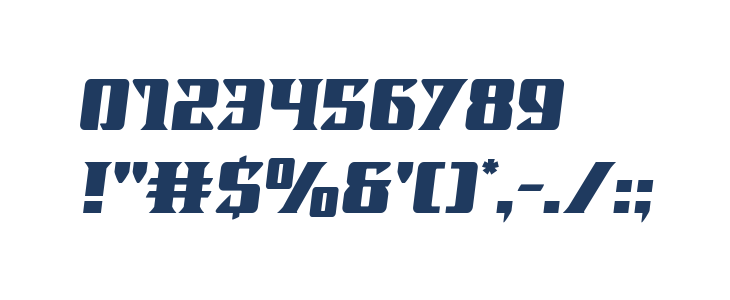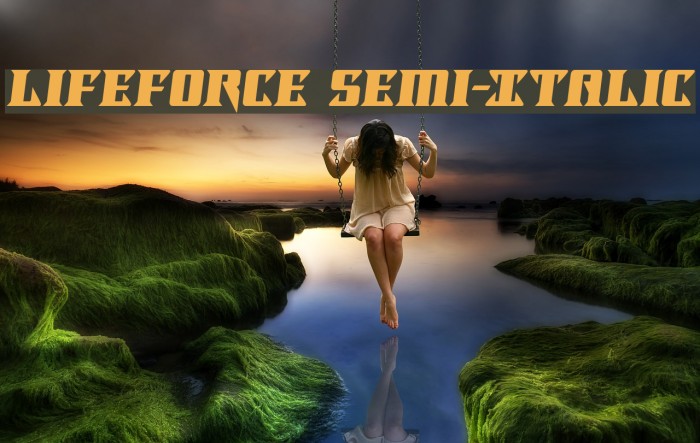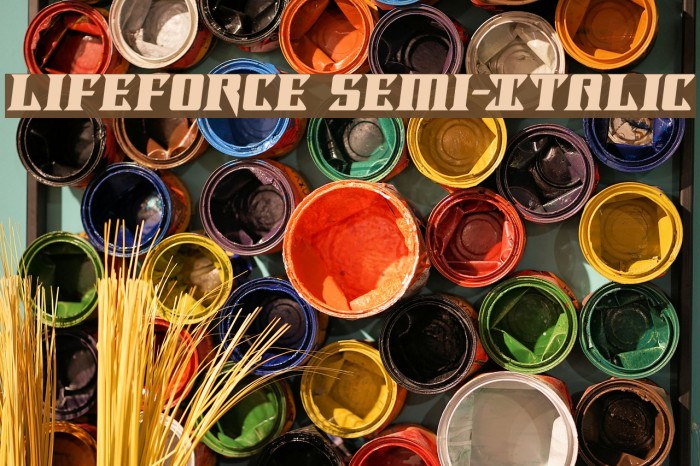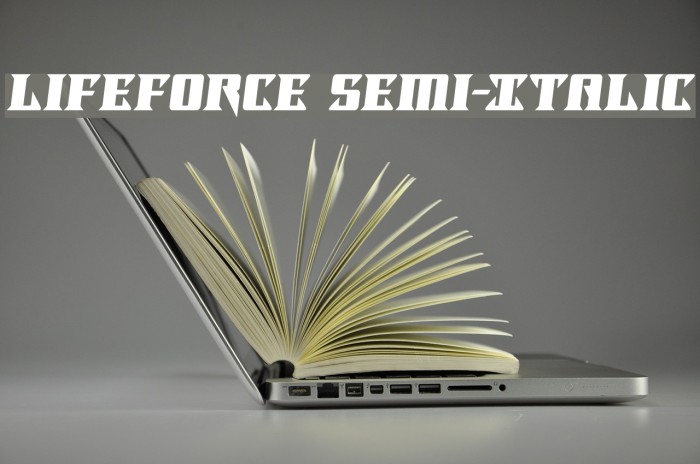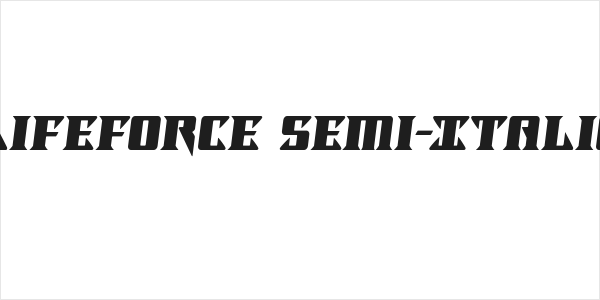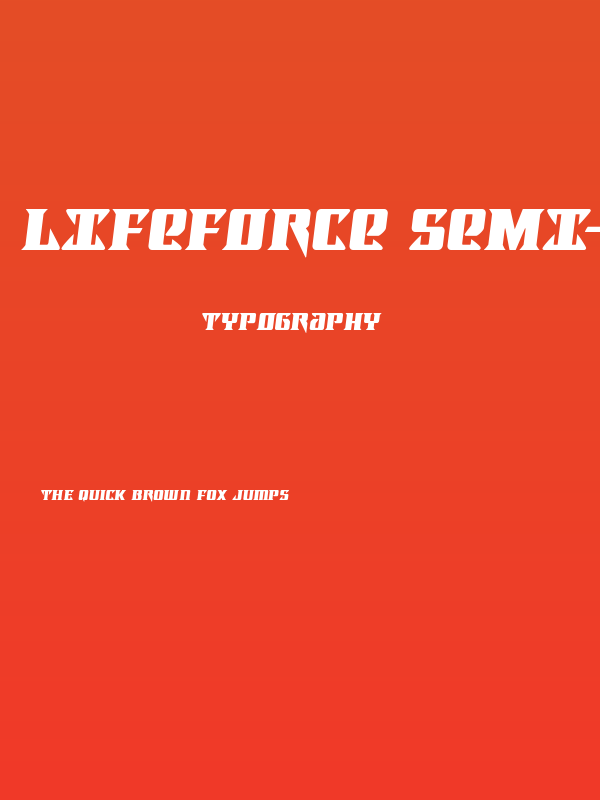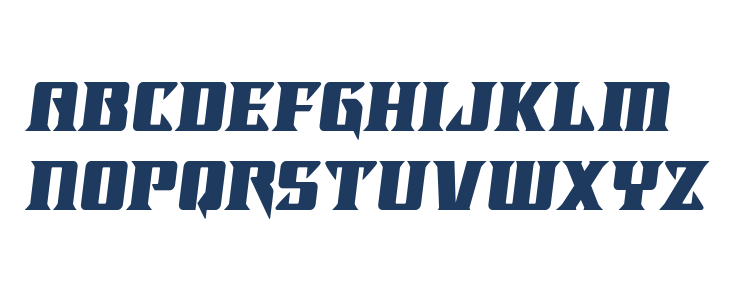
Lifeforce Semi-Italic Font
Lifeforce Semi-Italic Description
This font exhibits a bold and dynamic style with sharp, angular edges and a slightly italicized slant. The characters are designed with a strong presence, featuring thick strokes and pointed serifs that give it a distinctive, aggressive appearance. The uppercase and lowercase letters maintain a consistent style, while the numerals and special characters complement the overall aesthetic. This font's unique design makes it suitable for attention-grabbing headlines and impactful logos.
| Proposed Projects | Ideal for sports branding, action movie posters, video game titles, and dynamic logo designs. |